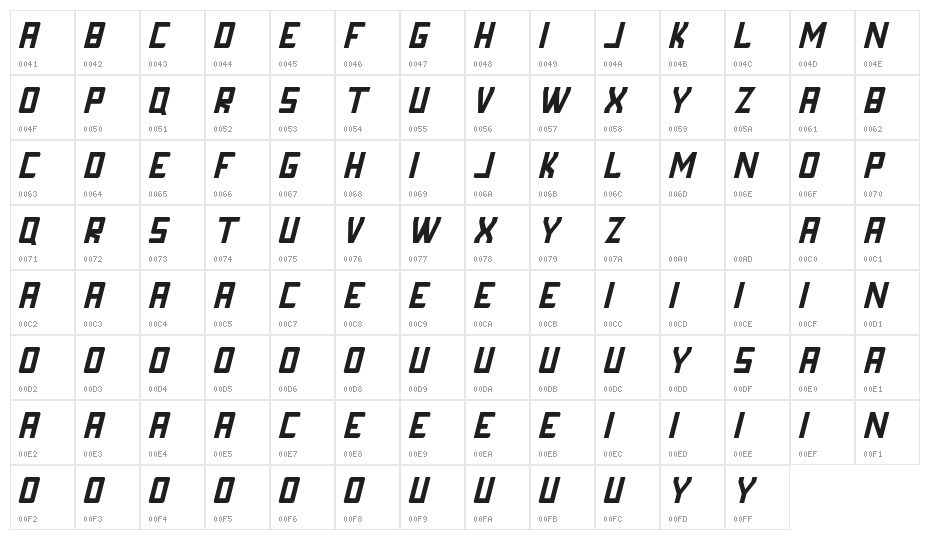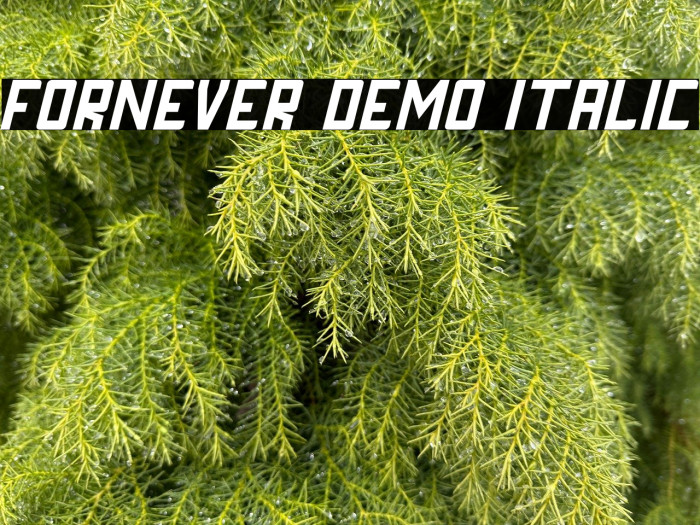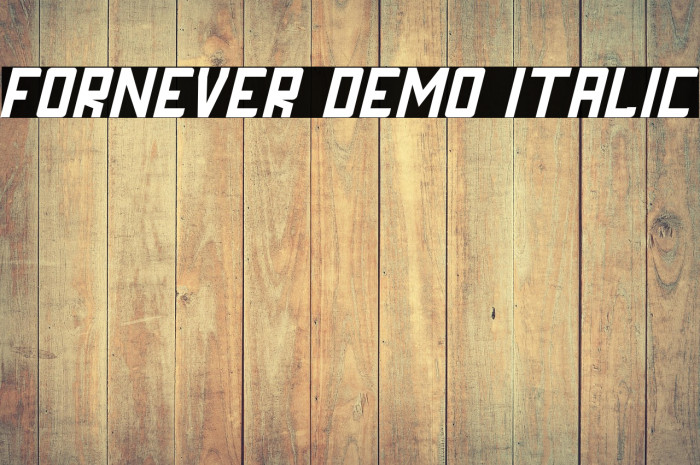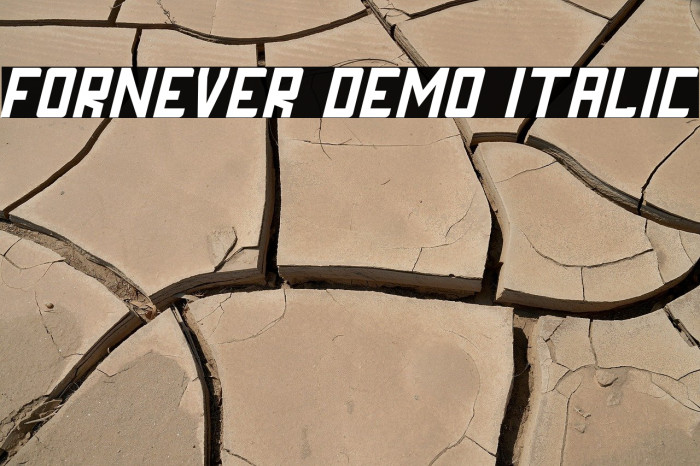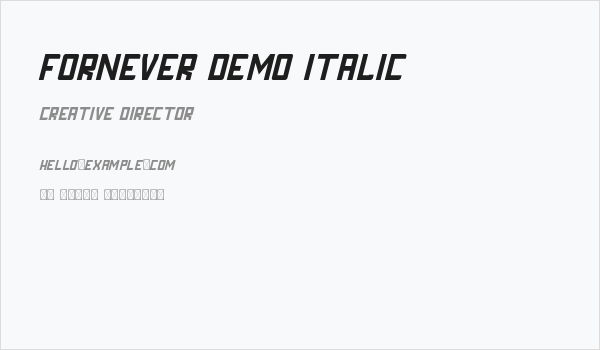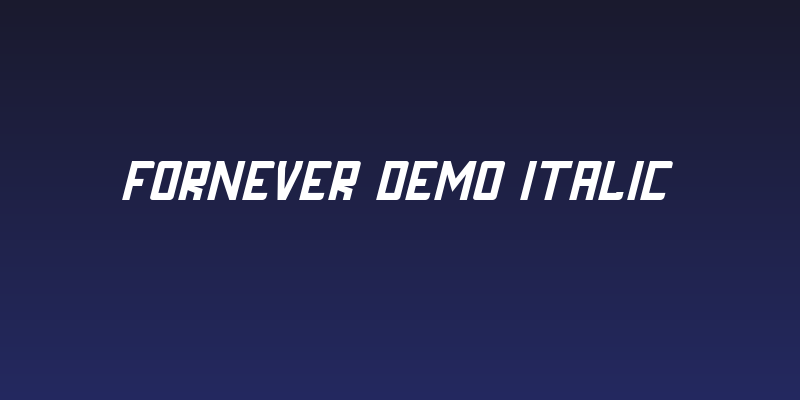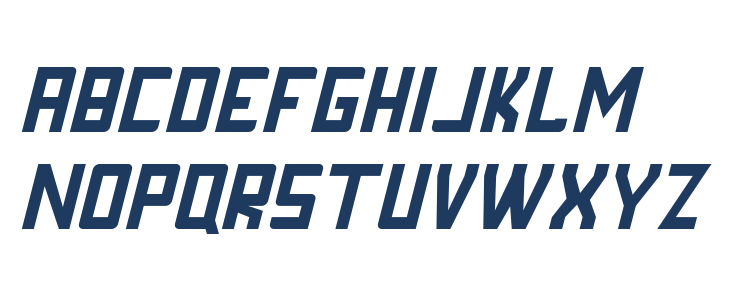
FORNEVER DEMO Italic Font
FORNEVER DEMO Italic Description
This font features a bold, italicized style with a modern and dynamic appearance. The characters are slightly slanted, giving a sense of motion and energy. The strokes are consistent in thickness, providing a uniform look across all letters. The design is clean and sharp, with angular edges that enhance its contemporary feel. The uppercase letters are prominent and assertive, making them ideal for attention-grabbing headlines. The spacing between characters is tight, which contributes to its compact and cohesive look. This font is well-suited for projects that require a bold statement or a modern aesthetic.
Proposed ProjectsIdeal for sports branding, dynamic posters, modern advertisements, and eye-catching headlines.